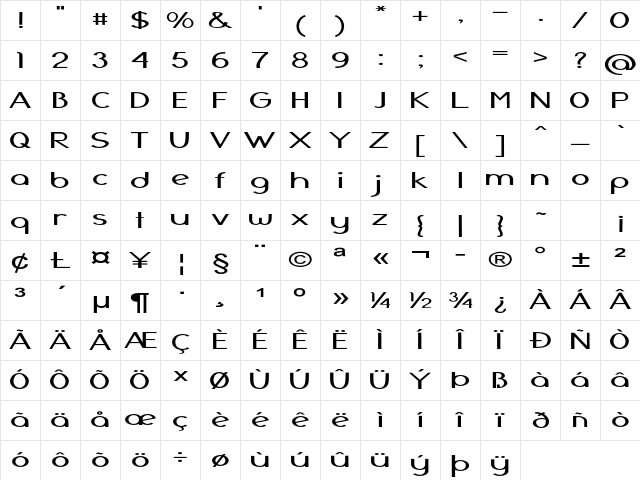
Halifax Extra-expanded Bold
Style: Extra-expanded Bold
Halifax Family
Halifax Extra-expanded Bold
Complete Halifax Extra-expanded Bold glyph index. Displaying only characters natively supported by Halifax Extra-expanded Bold font.
Design Context for Halifax
Halifax is a composed and adaptable typeface that performs quietly and consistently across a wide range of design contexts. Its bold stroke weight gives it real presence on the page.